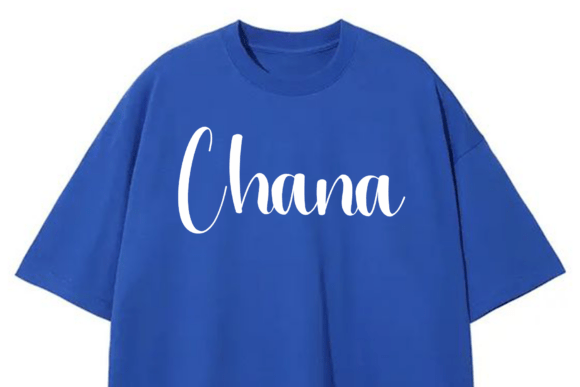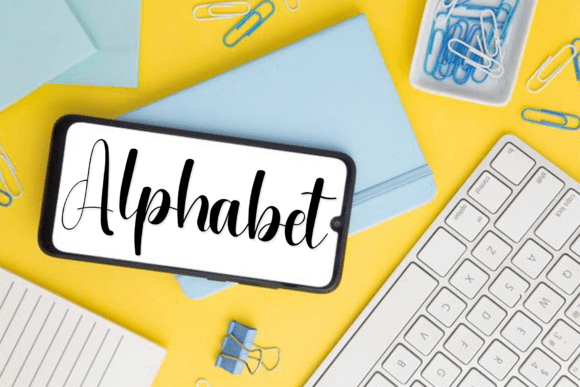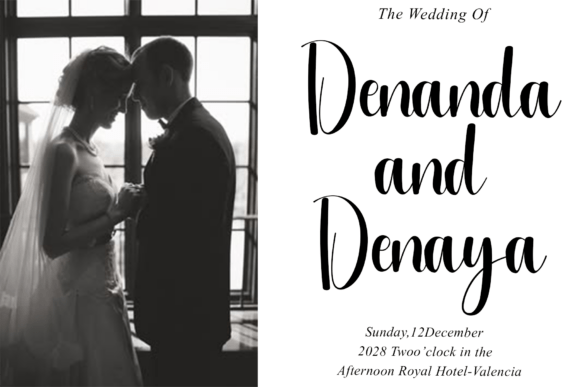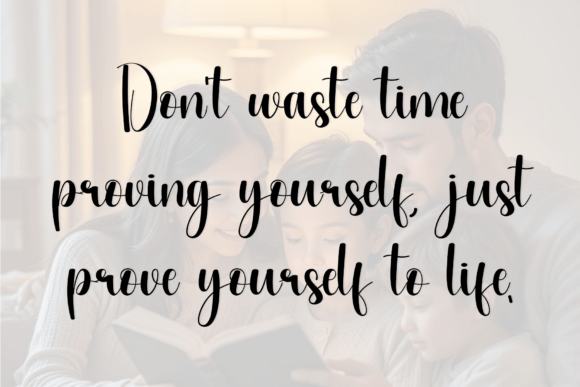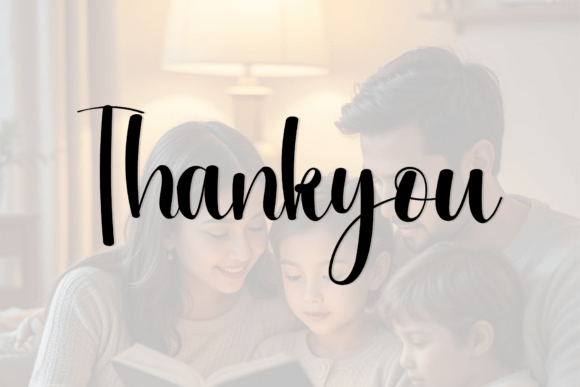
Babynight Font: Elevate Your Design with Elegance and Sophistication
In the world of typography, a well-crafted font can make all the difference in elevating your design from ordinary to extraordinary. Introducing Babynight Font, a beautifully flowing and elegant modern handwritten script font that is sure to captivate your audience. With its smooth, generous curves and graceful, elongated strokes, Babynight exudes a sophisticated, signature look that is perfect for designers and crafters seeking to add a touch of luxury to their projects.
The Characteristics of Babynight Font
Babynight Font boasts a range of characteristics that make it an exceptional choice for various design applications. Some of its key features include:
- Smooth, generous curves: Babynight’s curves are meticulously crafted to create a flowing, organic feel that is both elegant and refined.
- Graceful, elongated strokes: The font’s elongated strokes add a touch of sophistication and luxury, making it perfect for high-end designs.
- Unique and professional: Babynight’s distinctive style sets it apart from other fonts, ensuring your design stands out from the crowd.
Ideal Applications for Babynight Font
Babynight Font is versatile and can be used in a variety of design projects, including:
- Personal branding: Establish a luxurious and sophisticated brand identity with Babynight’s elegant script font.
- Photography watermarks: Add a touch of refinement to your photography watermarks with Babynight’s beautiful, flowing curves.
- Luxury wedding stationery: Create stunning wedding invitations, save-the-dates, and other stationery with Babynight’s elegant and sophisticated font.
- Editorial design: Elevate your editorial designs, such as magazines, blogs, and newspapers, with Babynight’s refined and luxurious typography.
Why Choose Babynight Font?
With so many fonts available, why choose Babynight? Here are just a few reasons why designers and crafters are falling in love with this exceptional font:
- Authentic and natural look: Babynight’s handwritten script font has an authentic, natural look that is perfect for designs that require a personal touch.
- Luxurious feel: The font’s elegant curves and elongated strokes evoke a sense of luxury and sophistication, making it ideal for high-end designs.
- Easy to read: Despite its elegant and refined appearance, Babynight Font is easy to read, making it perfect for body text and headlines.
Tips for Using Babynight Font Effectively
To get the most out of Babynight Font, here are a few tips to keep in mind:
- Use it sparingly: Babynight Font is a statement font, so use it sparingly to avoid overwhelming your design.
- Pair it with complementary fonts: Pair Babynight with complementary fonts to create a harmonious and balanced design.
- Experiment with different sizes and colors: Don’t be afraid to experiment with different sizes and colors to find the perfect combination for your design.
In conclusion, Babynight Font is an exceptional choice for designers and crafters seeking to add a touch of elegance and sophistication to their projects. With its smooth, generous curves and graceful, elongated strokes, Babynight exudes a luxurious, signature look that is perfect for a range of design applications. Whether you’re looking to create a stunning personal brand, luxurious wedding stationery, or elegant editorial design, Babynight Font is sure to impress.